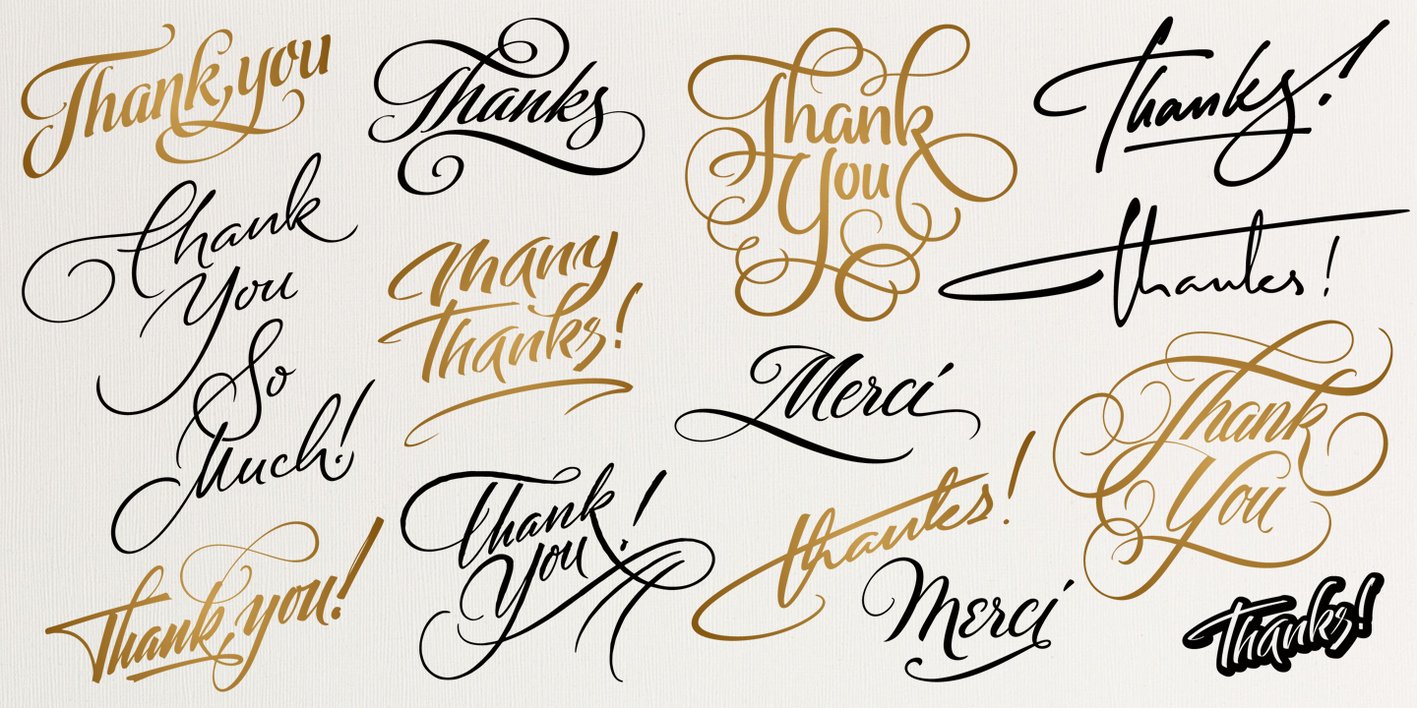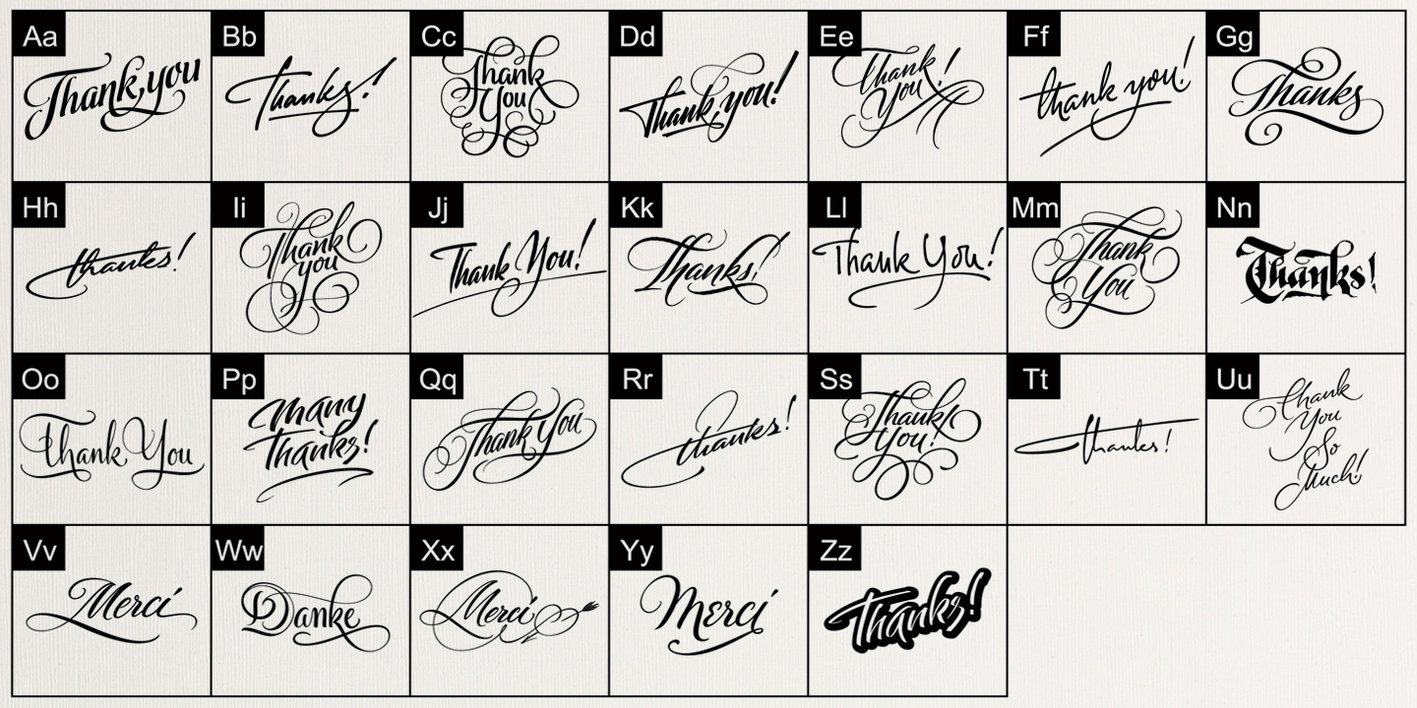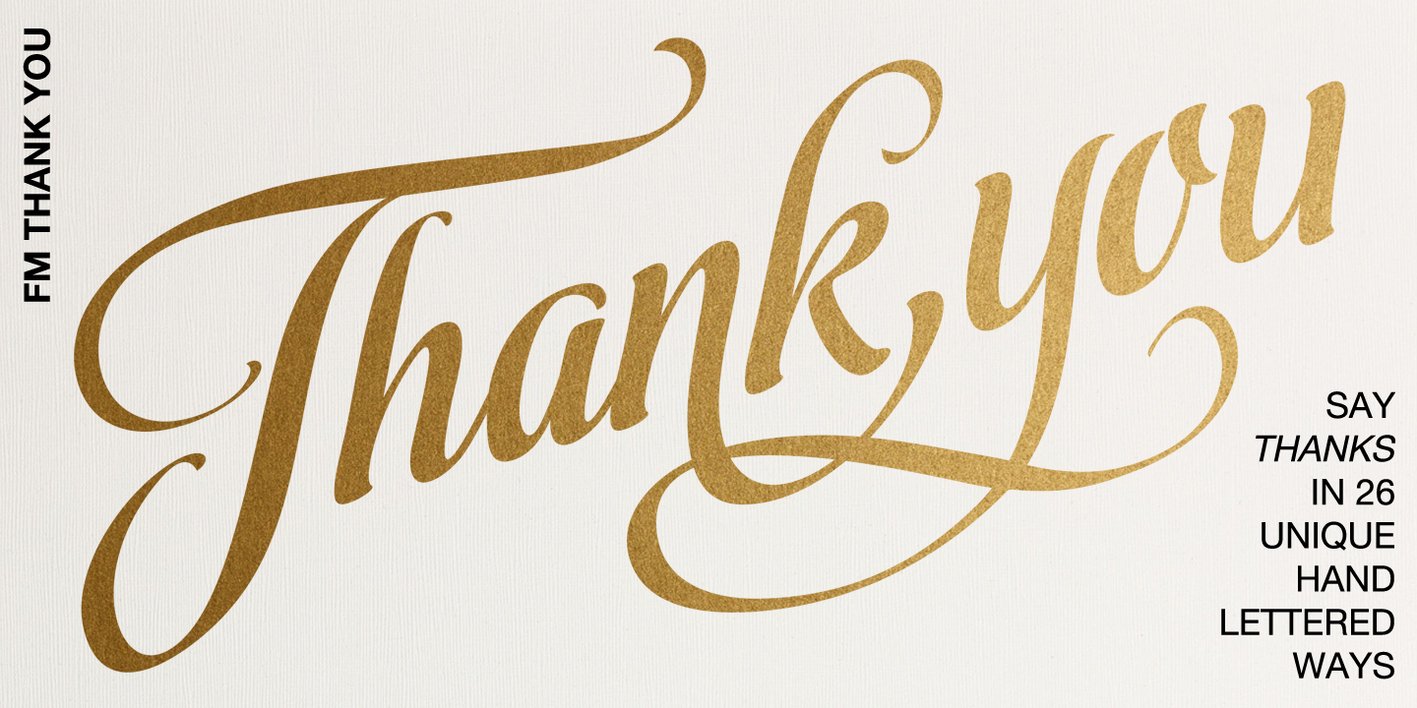
FM Thank You Font
FM Thank You consists of 26 ‘thank you’ hand letterings - all custom made and handwritten. Now you have 26 unique ways to say ‘thank you’, adding a personal touch to your message.